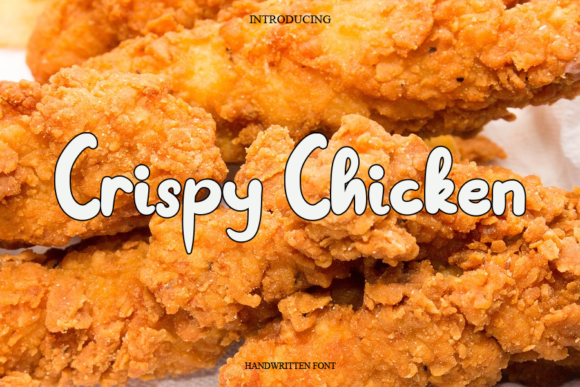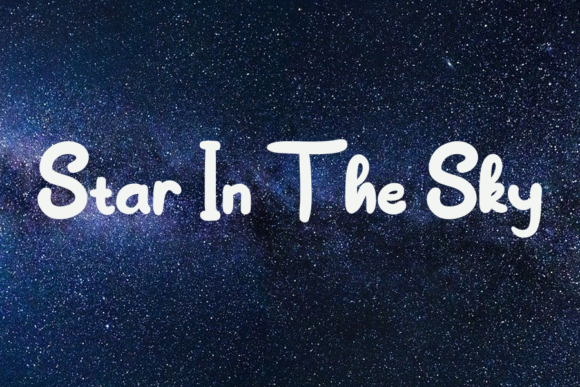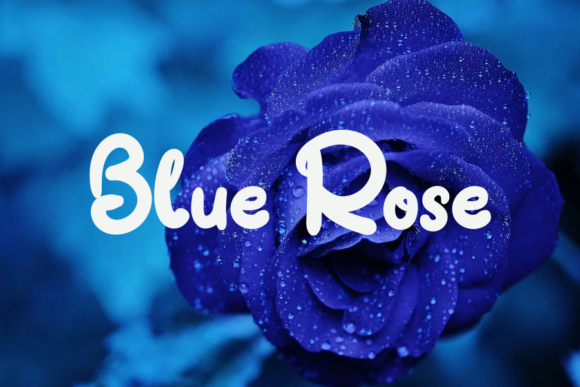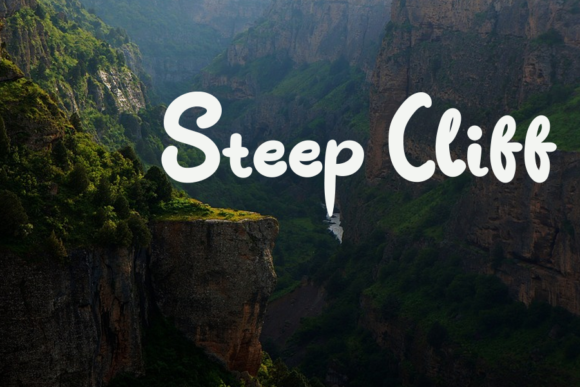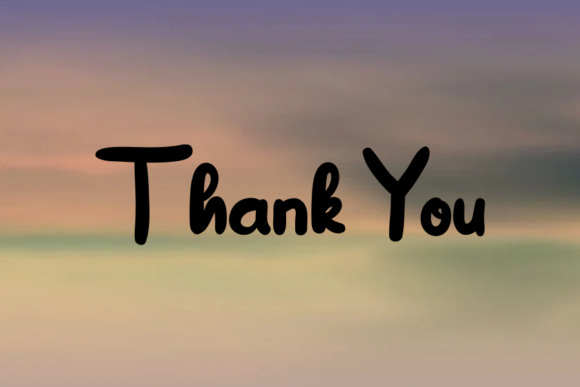
Crispy Chicken Font
About Crispy Chicken Font
Crispy Chicken is a simple and fun script font that brings a playful and casual vibe to your various craft designs. With its simplicity and ease of use, this font adds a touch of beauty and charm to your projects, making them visually appealing and engaging.
The simplicity of Crispy Chicken allows for easy integration into your designs. Its clean letterforms and smooth curves create a sense of clarity and readability, making it suitable for various craft applications. Whether you’re working on labels, packaging, posters, or any other project, Crispy Chicken font enhances the overall visual appeal with its simple and fun demeanor.
Crispy Chicken’s fun and casual style adds a touch of playfulness to your typographic compositions. Its handwritten appearance and friendly character create a relaxed and inviting atmosphere. This font brings a sense of informality and approachability to your designs, making them visually engaging and accessible to a wide range of audiences.
Mixing Crispy Chicken with your various craft designs allows you to infuse them with a touch of beauty and charm. Its simple and fun script font adds a unique and personal element to your projects, making them stand out and capture attention.
In summary, Crispy Chicken is a simple and fun script font that adds beauty and charm to your craft designs. Its simplicity and ease of use make it a versatile choice for various applications. Embrace the playfulness of Crispy Chicken font and let it bring a touch of fun and casualness to your creative endeavors, enhancing the overall visual appeal of your craft designs.